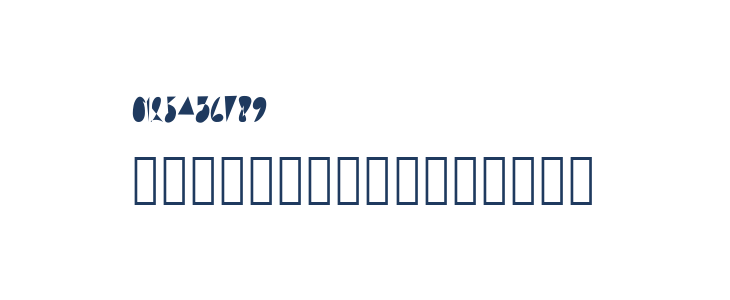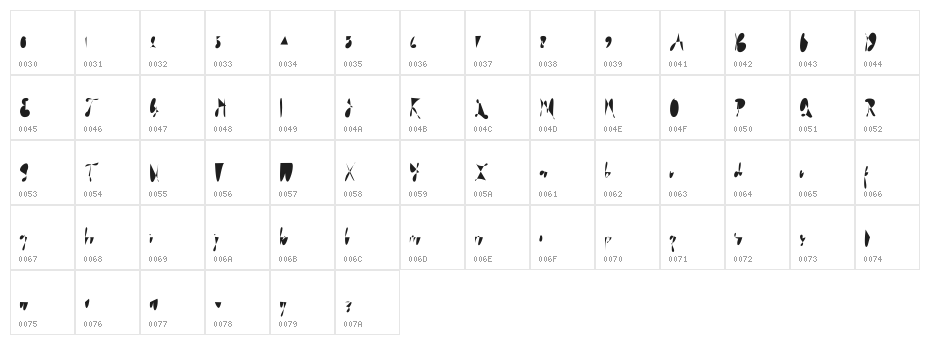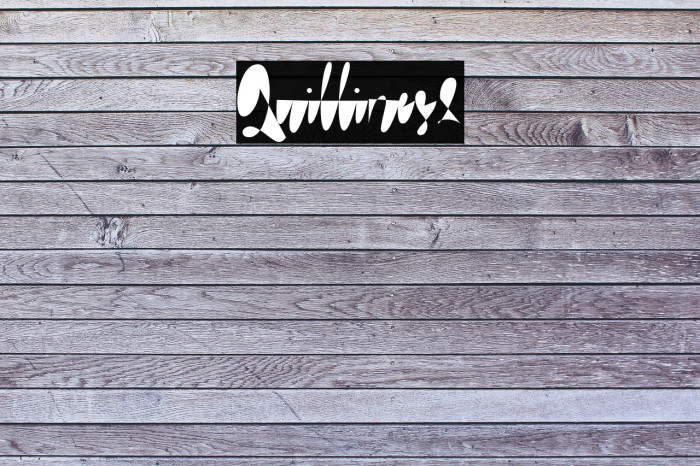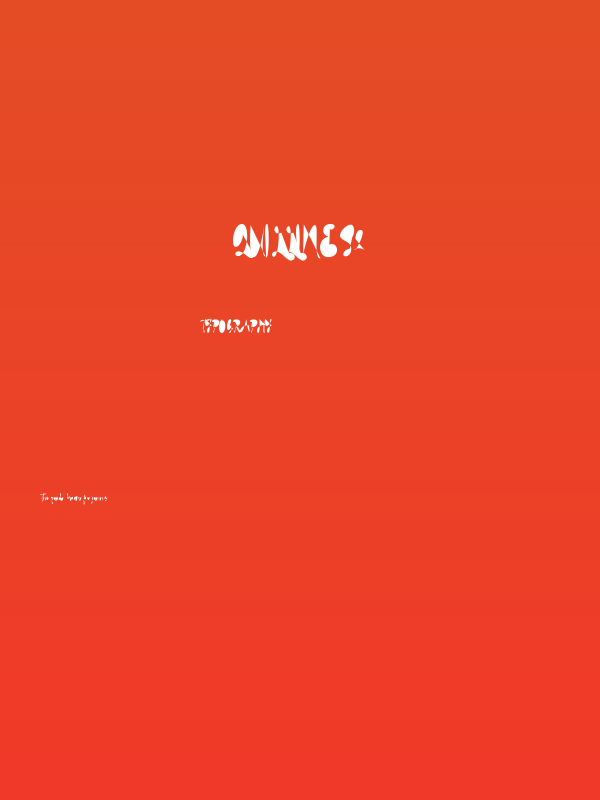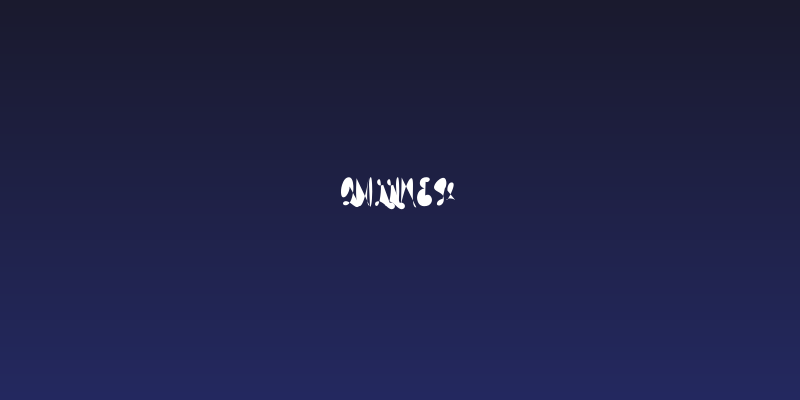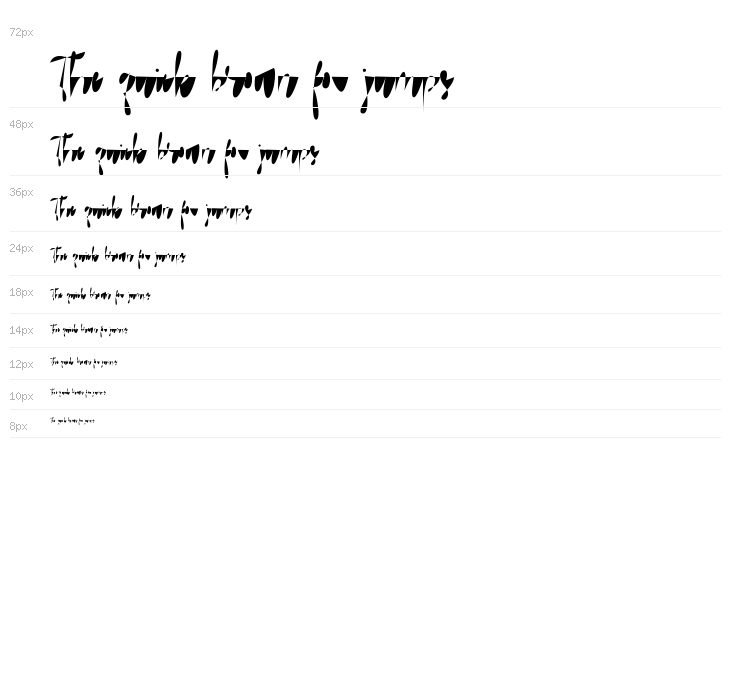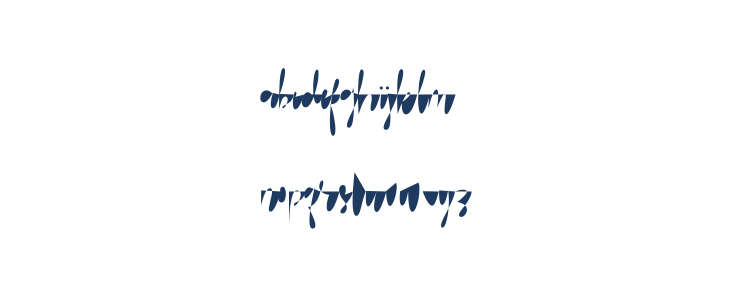
Quillines2 Font
Quillines2 Description
This font features a highly decorative and artistic style, characterized by its unique blend of sharp angles and flowing curves. The letters are crafted with a high level of contrast, where thick, bold strokes are juxtaposed with thin, delicate lines. This creates a dynamic and visually striking appearance. The uppercase letters are particularly bold and dramatic, while the lowercase letters maintain the same artistic flair but with a slightly more subdued presence. The numbers and special characters follow the same design principles, ensuring a cohesive look across all elements. This font's intricate design makes it suitable for projects that require a touch of elegance and creativity.
QUILLINES21 UPPERCASE
QUILLINES21 LOWERCASE
QUILLINES21 OTHER CHARS